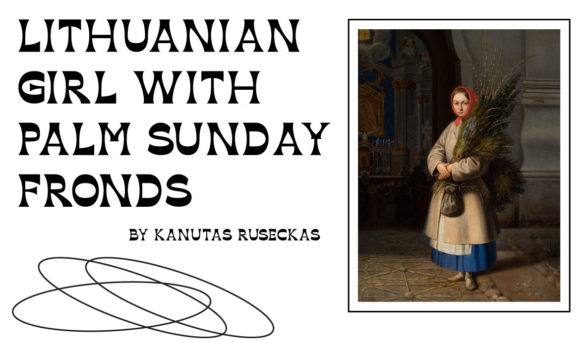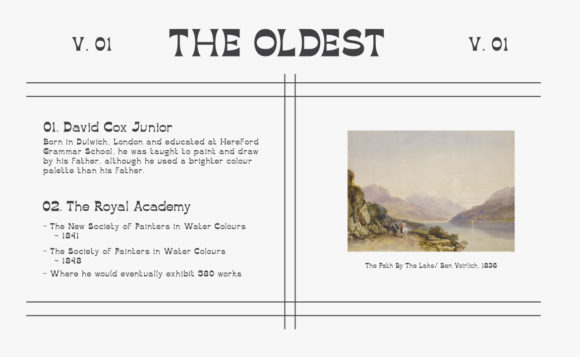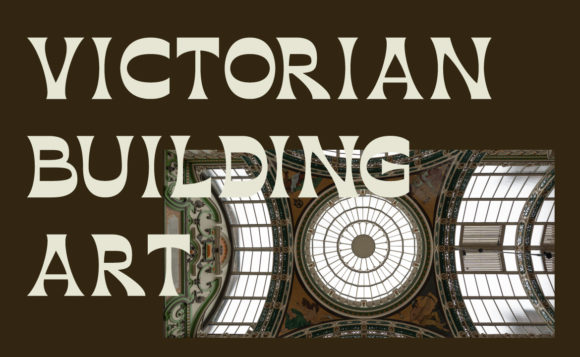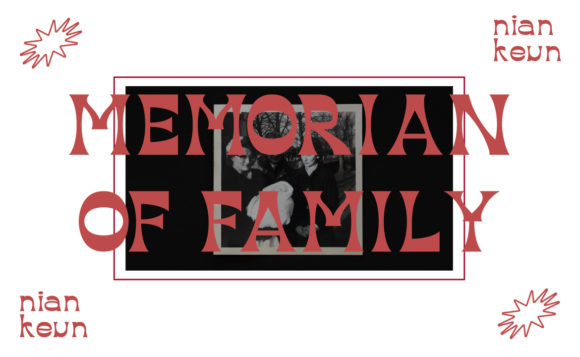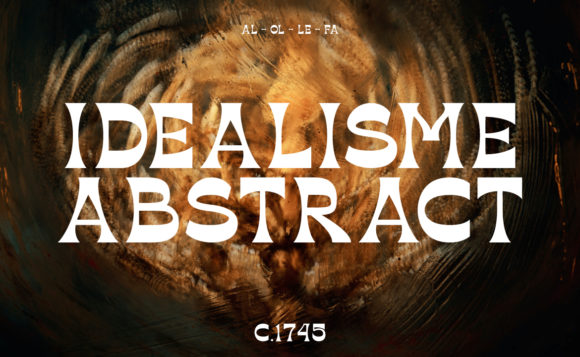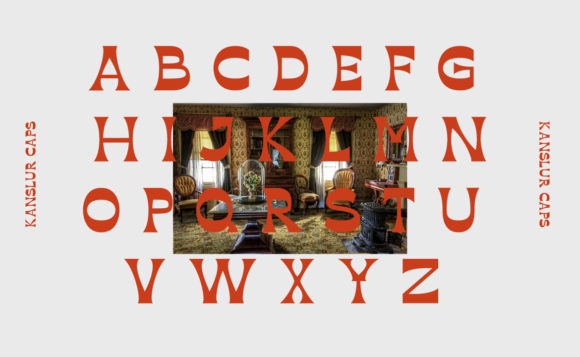
Introduction to Kanslur Font
Have you ever stared at a blank canvas, waiting for inspiration to strike? You finally have that perfect idea, but it’s missing one crucial element – a font that captures the essence of your creative vision. For designers, finding the right typography can be a game-changer. This is where the Kanslur Font comes in – a cool, whimsical, and trendy display font that’s sure to elevate your next design project.
Whether you’re working on a web design, crafting business cards, or anything in between, the Kanslur Font is an excellent design resource to have in your toolkit. With its unique style and versatility, this font is perfect for adding a fun and modern touch to your creative project. And the best part? It’s available for free download, making it an accessible and valuable asset for designers of all levels.
Key Features of Kanslur Font
- High-quality, unique design suitable for various creative projects, including branding, logos, and graphics.
- Perfect for designers seeking a distinctive and eye-catching font for their next creative project.
Honest Review: Kanslur Font
I recently stumbled upon the Kanslur Font while searching for a unique design resource for my creative project. I was excited to try it out and see how it would fit in with my overall design aesthetic.
- ✨ High-quality glyphs that make it perfect for any design project, from digital to print.
- ✨ Transparent background, allowing for seamless integration with any background or design element.
- ⚠️ Limited language support, which may be a concern for designers who need to work with multiple languages.
- ⚠️ Not ideal for use in situations where a high level of readability is required.
Overall, I would say that the Kanslur Font is a solid addition to any designer’s toolkit. While it may have its limitations, its unique style and high-quality glyphs make it a great option for designers who are looking to add some creativity to their projects. With a bit of caution and planning, I think the Kanslur Font can be a valuable resource for designers who are looking for a free download with some real character.
Some tips for getting the most out of the Kanslur Font include using it for titles and headings, as it is highly legible and visually appealing. Common use cases include designing business cards, brochures, and social media graphics.